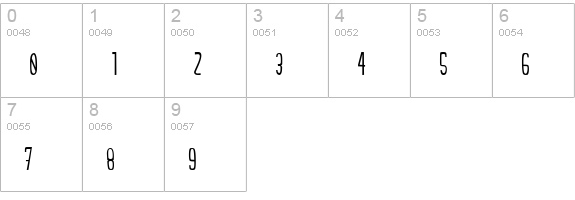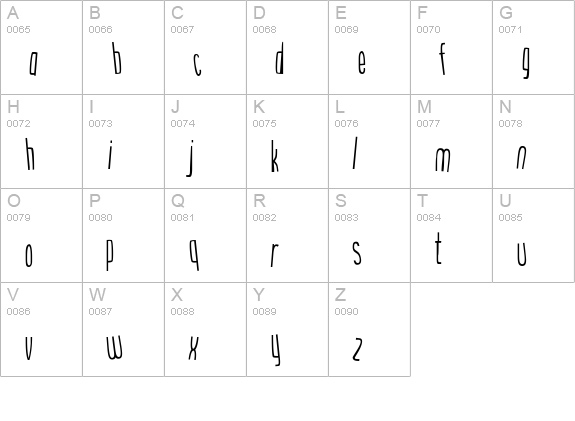
the bends Font Details
Bends Font is a stunning typeface that effortlessly combines elegance and creativity. With its unique and fluid curves, this font brings a touch of sophistication to any design project. Whether you're creating a logo, branding material, or a captivating poster, Bends Font will surely make a lasting impression. What sets Bends Font apart is not only its impeccable design but also its accessibility. This font is freely available for download at FontsMarket.com, making it a valuable asset for both personal and commercial use. Its versatility allows it to be used in a wide range of applications, from digital designs to printed materials. The smooth and seamless strokes of Bends Font add a sense of movement and dynamism to your typography. Each character is meticulously crafted, resulting in a font that is both visually appealing and easily legible. The attention to detail in the letterforms ensures that Bends Font remains versatile and adaptable across various design styles. Whether you're a professional designer or a creative enthusiast, Bends Font offers endless possibilities for your next project. Its versatility allows you to experiment with different letterforms and create unique compositions that truly stand out. With Bends Font, your designs will exude a sense of sophistication and modernity. Don't miss out on this incredible opportunity to enhance your design toolkit. Download Bends Font for free at FontsMarket.com and unleash your creativity today. Elevate your design projects and captivate your audience with the elegance and versatility of Bends Font.